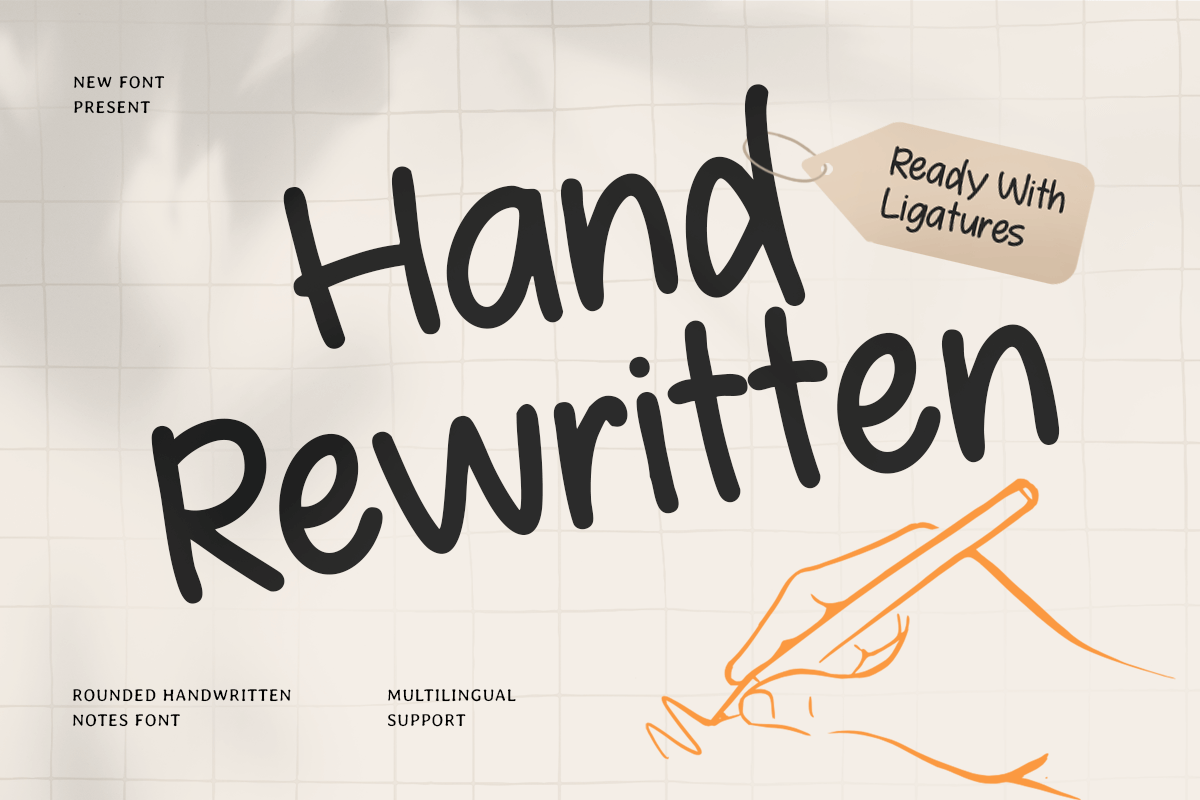
Hand Rewritten
-Rounded Handwritten Notes FontHand Rewritten - Rounded Handwritten Notes Font
Hand Rewritten is a rounded handwritten notes font designed to feel warm, natural, and effortlessly friendly. With soft curves and an easygoing handwritten flow, this font brings a casual charm that makes text feel personal, approachable, and fun to read.
Perfect for everyday creative layouts, Hand Rewritten works beautifully across planners, journals, note designs, study materials, calendars, recipe cards, stickers, quotes, and social media graphics. Its rounded handwriting style keeps your content readable while adding a cozy, human touch for both digital and print projects.
Whether you’re building aesthetic planner pages, creating classroom notes, designing cute stationery, or crafting minimalist handwritten branding, Hand Rewritten gives you a clean rounded script that feels authentic, organized, and full of personality.
Inspiration Behind Hand Rewritten
Hand Rewritten is inspired by real-life note-taking and rounded pen handwriting—where simplicity, comfort, and clarity make communication feel more personal. The design focuses on smooth curves and a friendly rhythm to support journaling culture, planner design, and casual everyday typography with a cute, approachable vibe.
Hand Rewritten Font Features:
Rounded handwritten letterforms with a friendly notes-like feel
Perfect for planners, journals, notes, and casual stationery design
Clean readability for quotes, reminders, and everyday layouts
Planners, journals, calendars, and study notes
Cute stationery, note templates, and printable designs
Quotes, reminders, labels, and simple branding accents
Social media graphics, stories, and content templates
Scrapbooks, stickers, and friendly creative layouts
Make every note feel warmer with Hand Rewritten—your rounded handwritten font for clean, cute everyday writing. ✍️✨